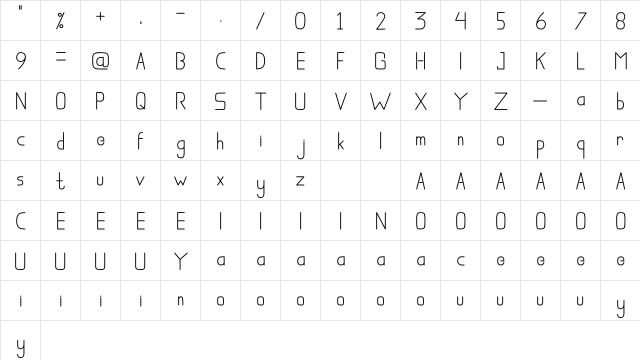
The Moon Regular
Design Context for The Moon Typeface
The Moon is a composed and adaptable typeface that performs quietly and consistently across a wide range of design contexts.